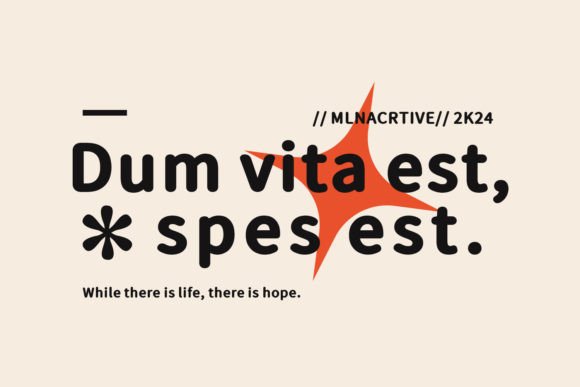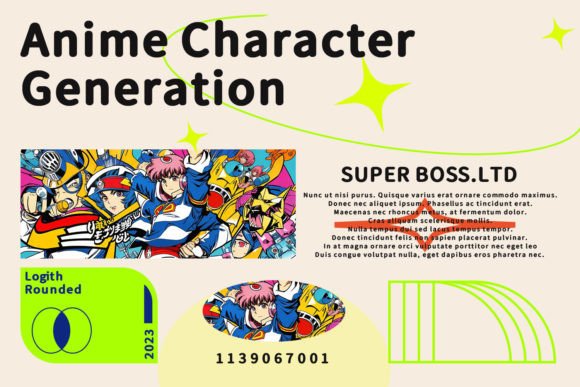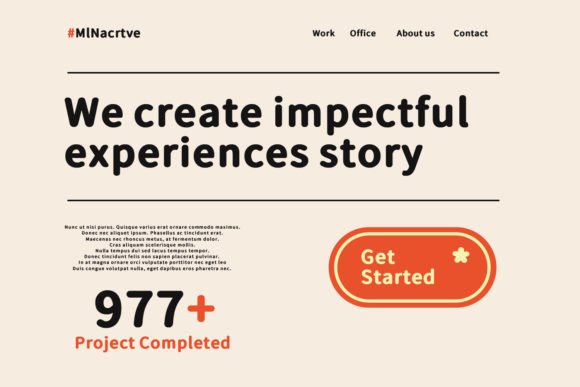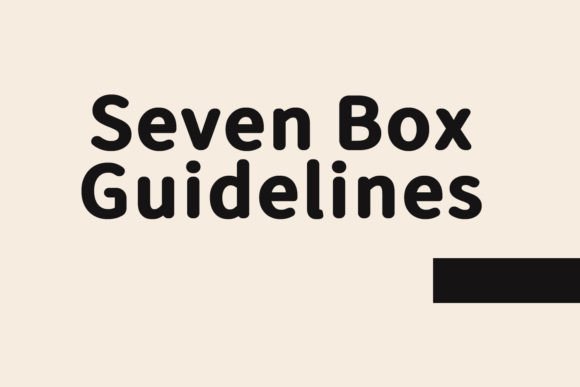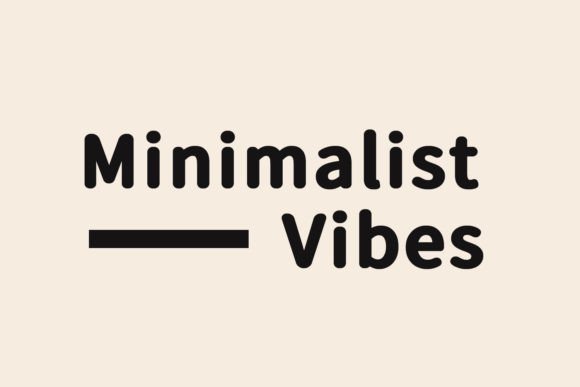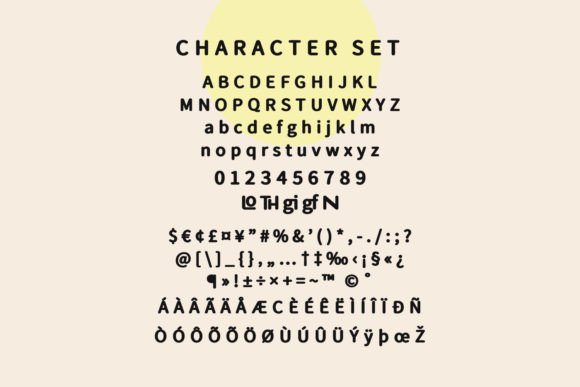
Introduction to Logith Font
Have you ever stared at a blank canvas, your creative project hanging in the balance, and suddenly – the perfect font pops into your head? For designers, finding that elusive font can be the difference between a project that shines and one that falls flat. That’s where Logith Font comes in, a clean and modern rounded sans-serif font that’s sure to make your text look friendly and easy to read.
Whether you’re working on a free download project or a high-end commercial campaign, Logith Font is the perfect design resource to elevate your work. With its smooth curves and clear design, it’s ideal for headlines and display purposes – making it a valuable addition to any designer’s toolkit.
Imagine being able to create a stunning visual identity for your brand, complete with a clear and modern font that sets you apart from the competition. With Logith Font, that vision is now a reality – and we can’t wait to dive in and explore its many features and benefits.
Key Features of Logith Font
• High-quality font designed for creative projects, ideal for graphic designers and digital artists.
• Transparent background and clean design make it perfect for use on logos, branding materials, and other design elements.
• Includes a wide range of characters and glyphs, ensuring versatility in your creative project.
• Logith Font is a unique design resource that offers a distinctive look and feel, setting your creative project apart from the rest.
Honest Review: Logith Font
I recently stumbled upon the Logith Font, and I’m excited to share my honest review with you. As a designer, I’m always on the lookout for high-quality fonts to enhance my creative projects. Logith Font definitely caught my attention with its sleek and modern design.
• ✨ High-quality design: The Logith Font boasts a clean and sophisticated design that makes it perfect for a variety of creative projects.
• ⚠️ Limited font styles: The Logith Font comes in a limited range of styles, which might not be suitable for designers who prefer a wider range of font options.
• ⚠️ Not suitable for complex designs: While the Logith Font is perfect for simple designs, it might not be the best choice for complex projects that require a more dynamic font.
Overall, I’m impressed with the Logith Font’s potential. With its high-quality design and free download, it’s an excellent resource for designers working on simple creative projects. However, it’s essential to consider its limitations before making a decision.
Logith Font: A High-Quality Design Resource
Tips for Getting the Most Out of Logith Font
To get the most out of Logith Font, experiment with different font sizes, colors, and combinations to create unique and visually appealing designs. You can also use Logith Font in conjunction with other design resources, such as graphics and images, to create a cohesive look.
Common Use Cases for Logith Font
Logith Font is perfect for a variety of design projects, including logos, graphics, social media posts, presentations, and documents. It’s also great for creating high-quality designs that require a transparent background, making it a valuable resource for designers and non-designers alike.